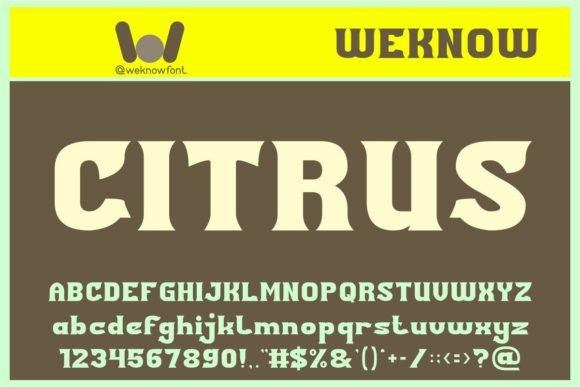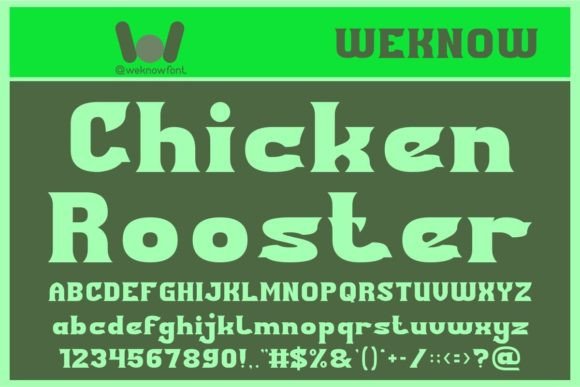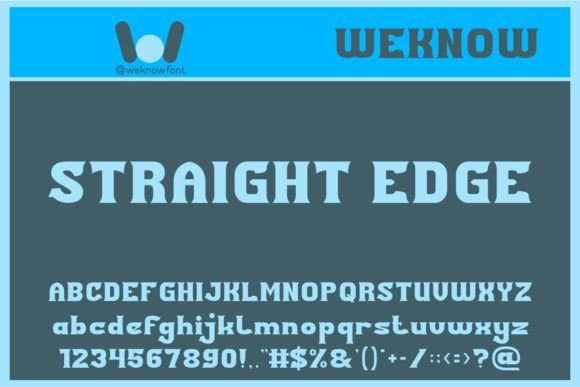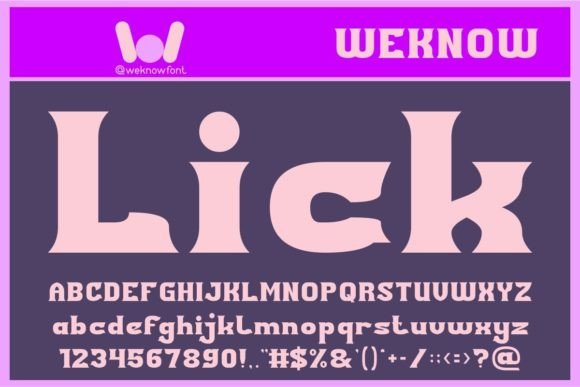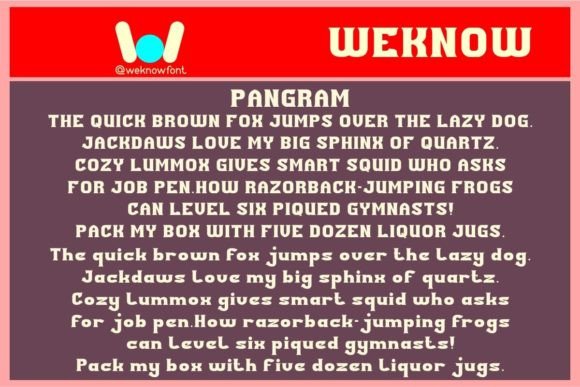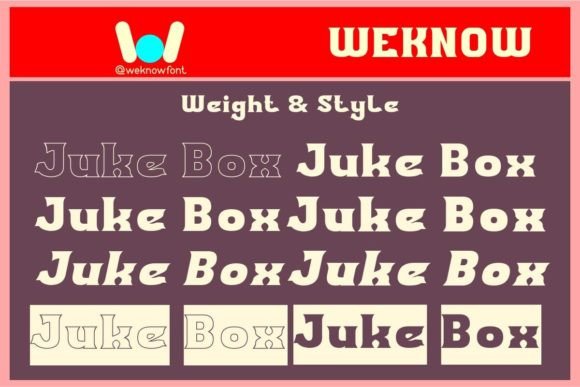
Introduction to Juke Box Font
Have you ever stumbled upon a vintage jukebox in a dimly lit diner, the neon lights reflecting off its chrome surface, and the sounds of classic rock music filling the air? For many designers, that’s the moment when inspiration strikes. The nostalgia and charm of those bygone eras can be a powerful catalyst for creativity.
For designers, finding the right font can make all the difference in bringing a project to life. That’s why we’re excited to introduce you to the Juke Box Font, a high-quality serif display font perfect for a wide range of creative projects. With its unique blend of vintage and modern elements, this font is sure to add a touch of sophistication and personality to your designs.
Key Features of Juke Box Font
- High-quality font design with a unique, energetic vibe perfect for creative projects
- Includes a range of weights and styles, including bold, italic, and regular, to cater to diverse design needs
- Perfect for use in music-related projects, such as album art, posters, and social media graphics, due to its fun and lively aesthetic
Honest Review: Juke Box Font
I recently stumbled upon the Juke Box Font, and I must say it’s been a game-changer for my creative projects. The high quality design makes it a great addition to any design resource.
- ✨ Unique and stylish design that stands out from the crowd
- ✨ Perfect for creating eye-catching headlines and titles
- ⚠️ Limited font sizes and styles available, which may not be suitable for all design projects
- ⚠️ May not be compatible with all font rendering engines, which can cause issues in certain browsers
Overall, I’m really impressed with the Juke Box Font. Its high quality design and free download make it a great resource for designers. While it may have some limitations, I think it’s definitely worth checking out for any creative project that requires a unique and stylish font.
The Juke Box Font is a high-quality design resource perfect for creative projects. This versatile font features a transparent background, making it easy to use in various design applications.
Tips for Getting the Most Out of Juke Box Font
For the best results, use the Juke Box Font in combination with other high-quality design resources. Experiment with different font sizes, colors, and styles to create a unique look. You can also use the font in various design applications, such as social media posts, graphics, and presentations.
The Juke Box Font is perfect for creative projects, including:
- Social media posts and graphics